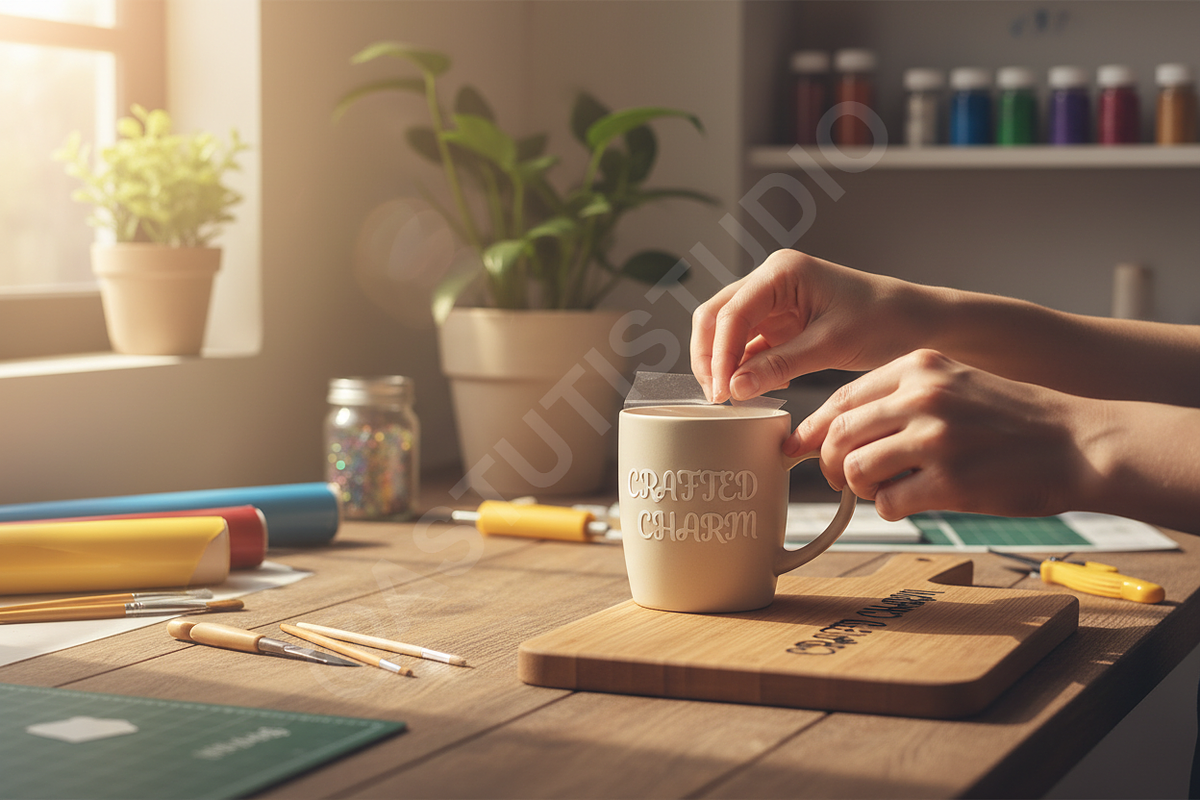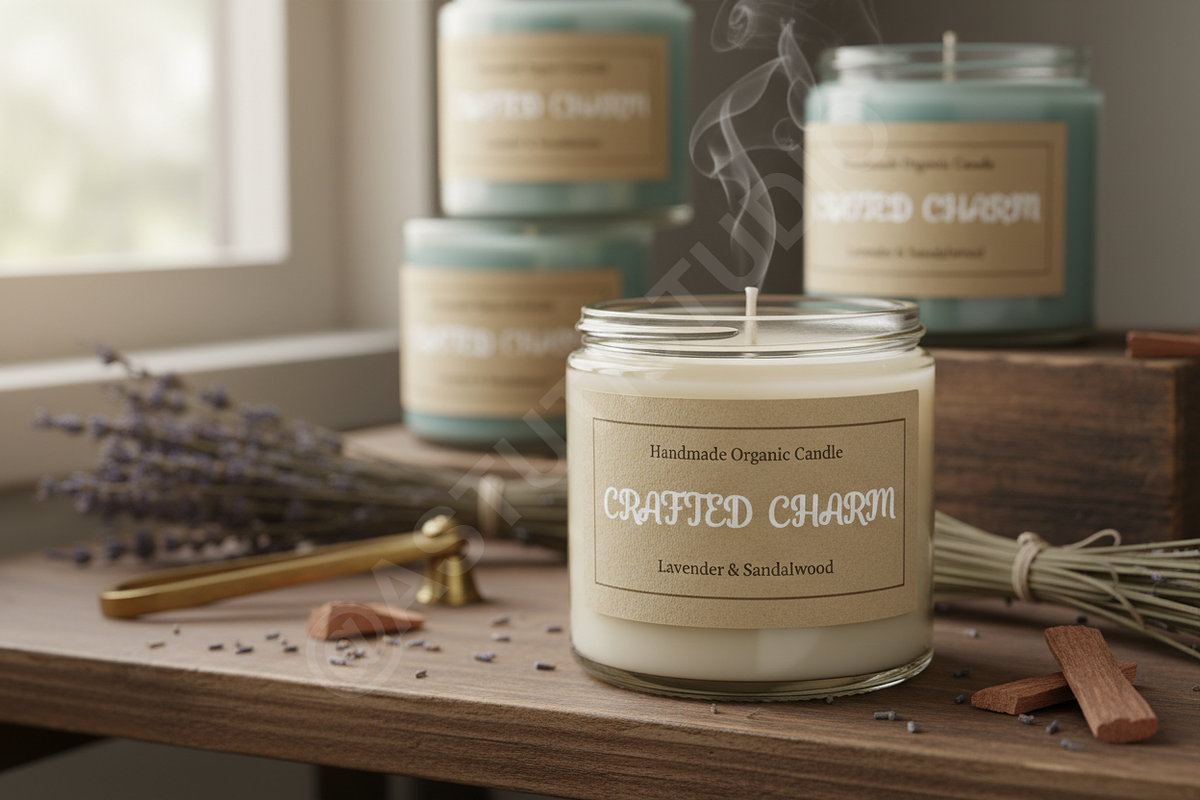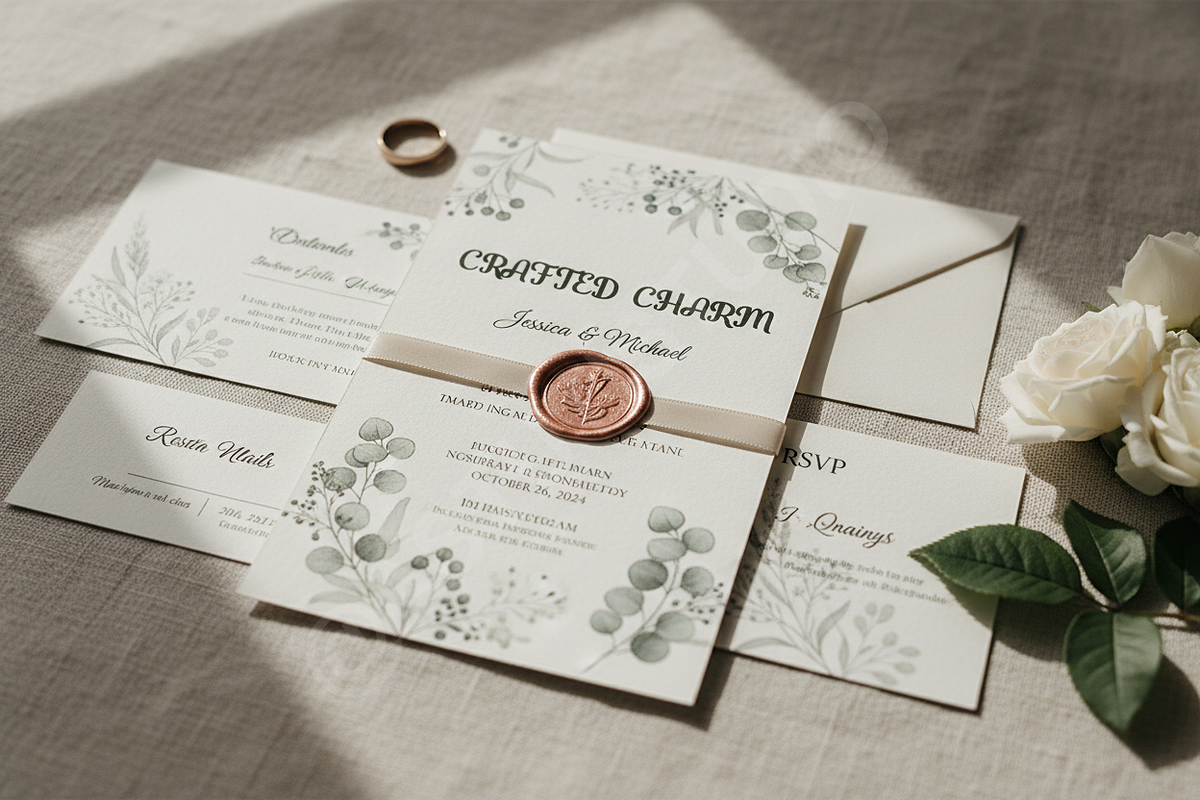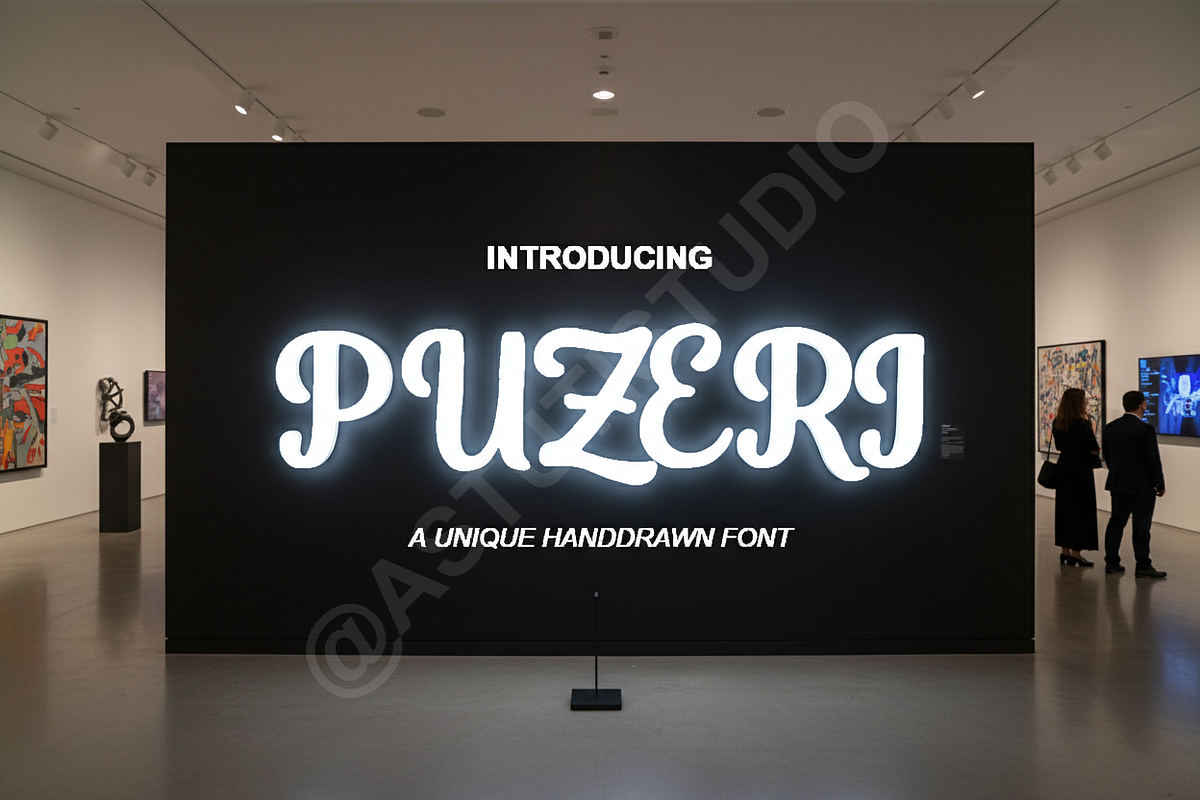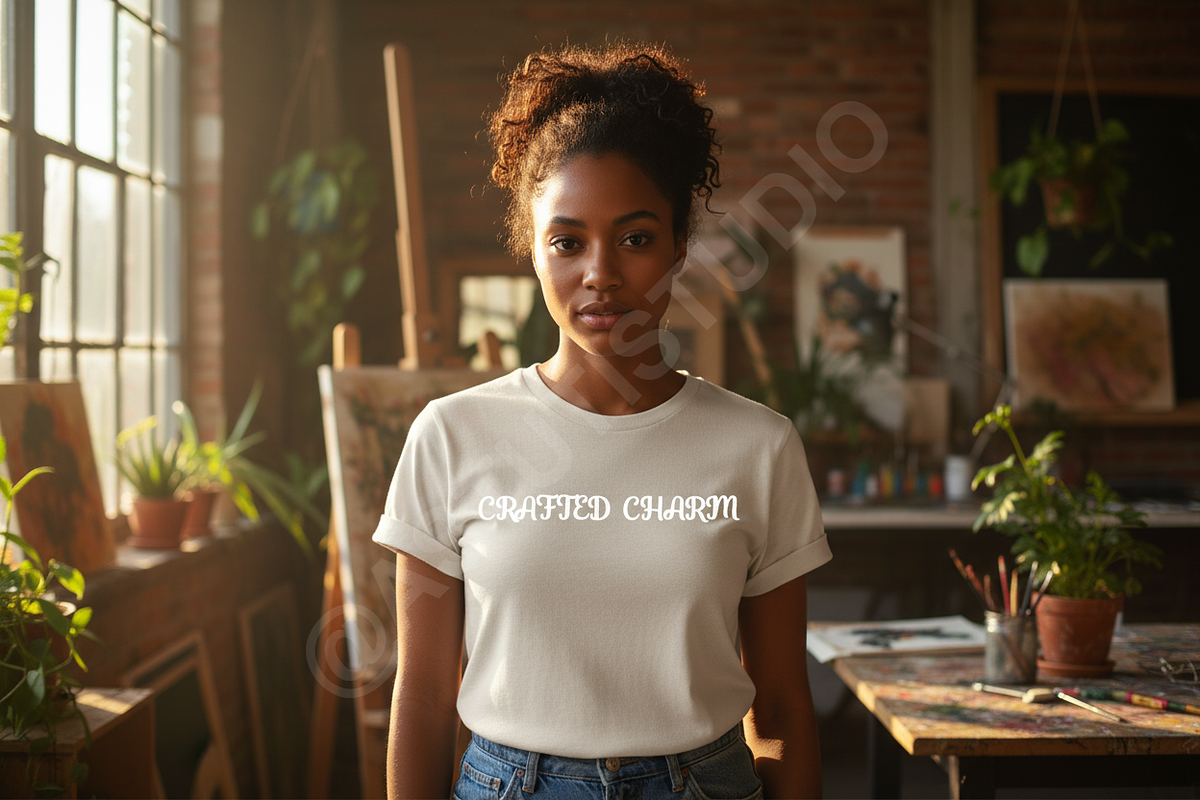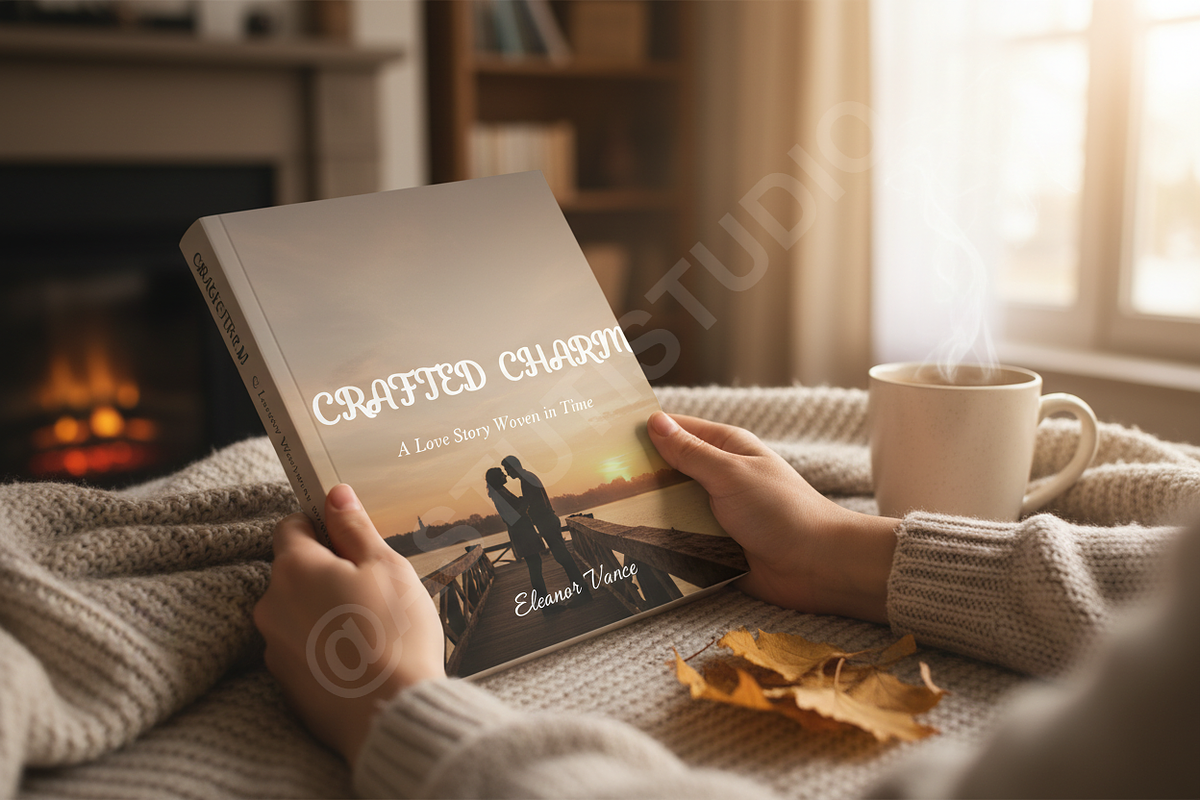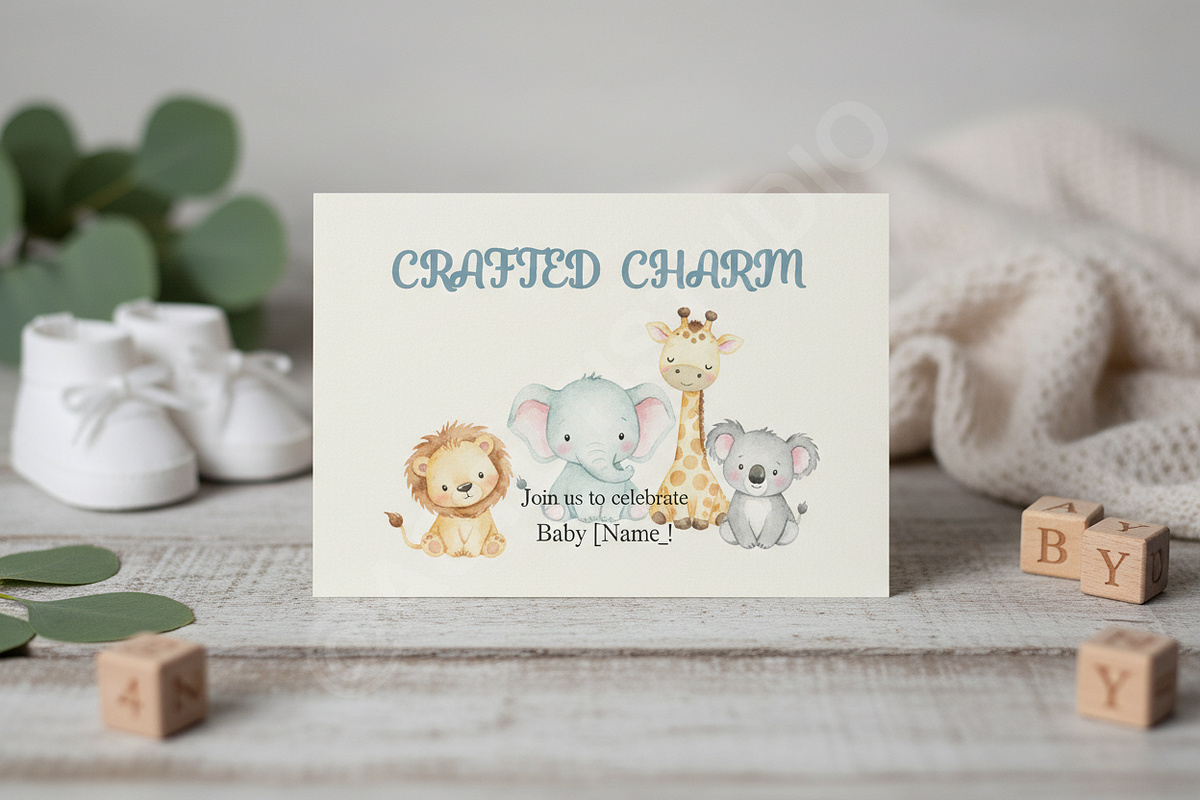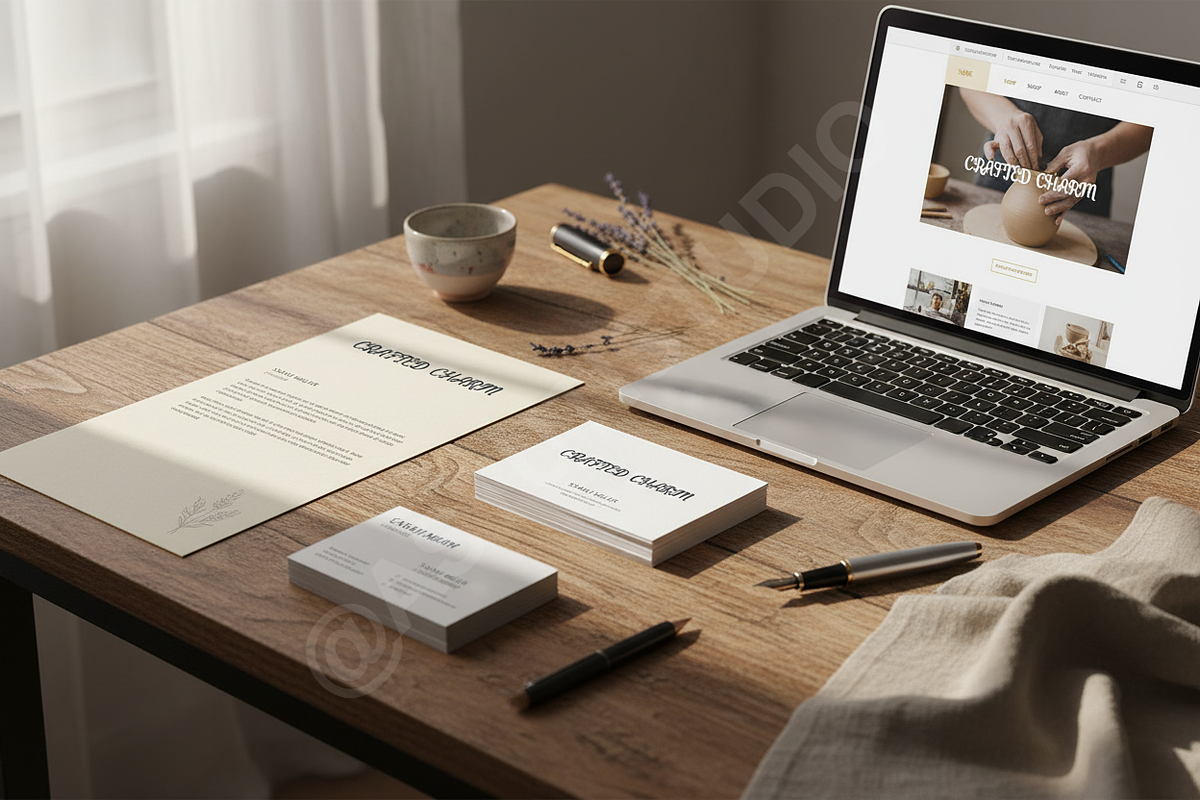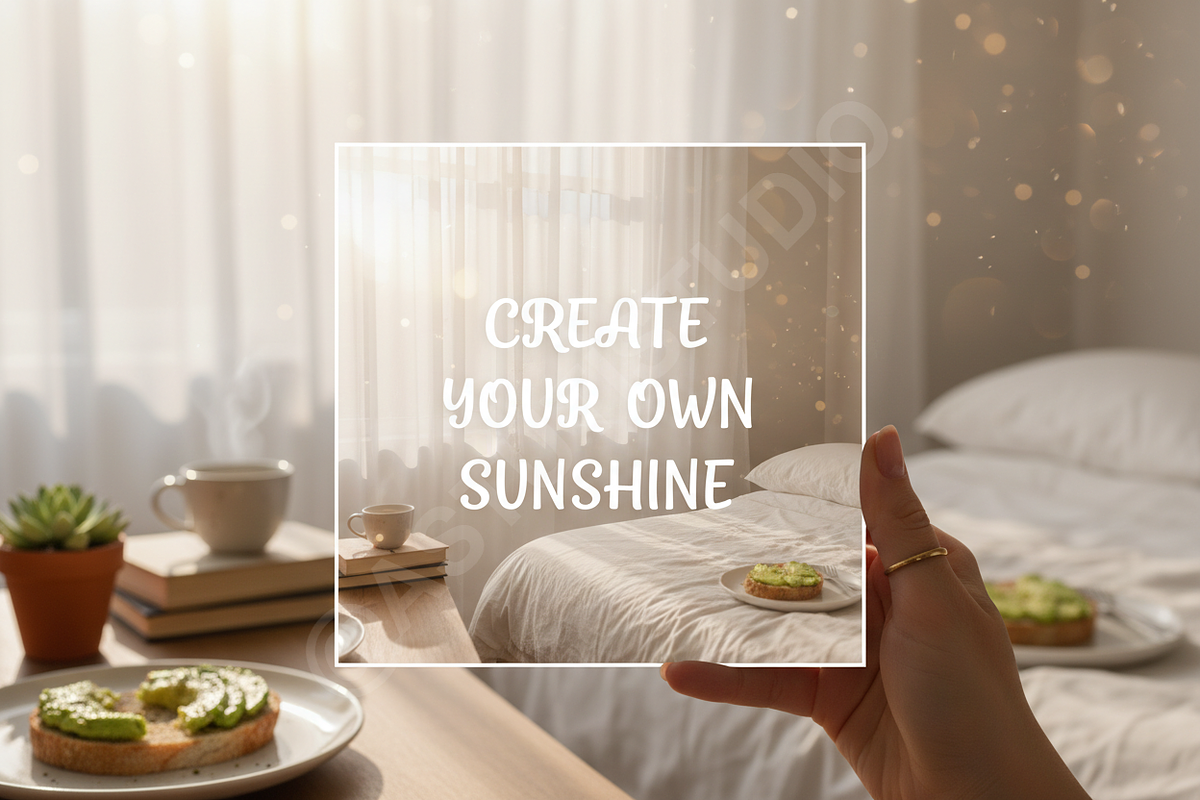
Puzeri - A Premium Modern Serif for
Introduction
Puzeri is a sophisticated serif typeface meticulously crafted for the modern aesthetic. It seamlessly balances timeless elegance with contemporary flair, making it the ideal choice for high-end fashion, luxury editorials, and refined social media identities. Designed for designers who demand excellence, Puzeri offers a distinct personality that elevates any design project from ordinary to exceptional.
- High-contrast letterforms for a premium feel
- Extensive ligatures and stylistic alternates for custom layouts
- Comprehensive multilingual support for global accessibility
- Optimized kerning for superior readability in both print and digital media
- Versatile weights suitable for headlines and body text
- Full character set including Uppercase and Lowercase
- Numbers, Punctuation, and Symbols
- Unique Special Ligatures and Alternates